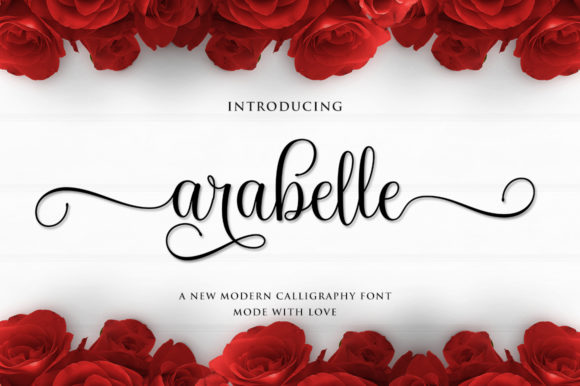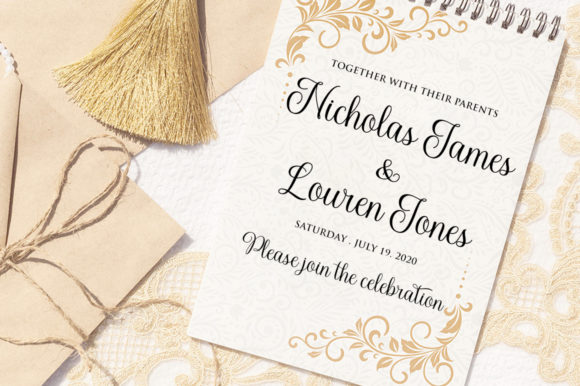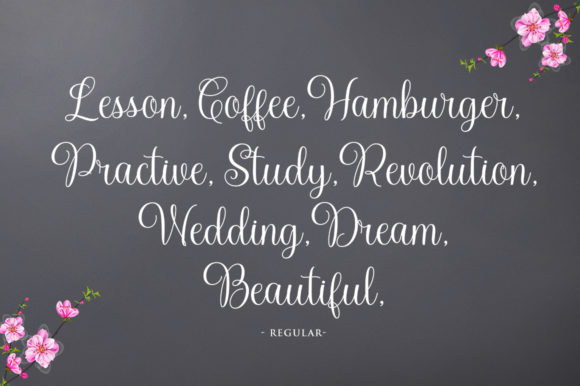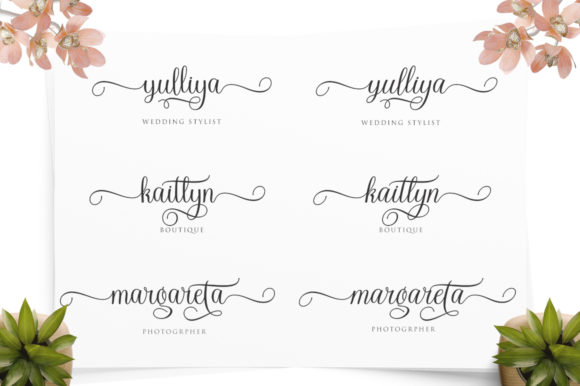
About Arabelle Font
Arabelle is a sweet, romantic calligraphy typeface, with characters dancing along the baseline. It has a casual yet elegant touch and can be used for various purposes such as logos, wedding invitations, headers, t-shirts, letterheads, signboards, labels, news, posters, badges and much more!